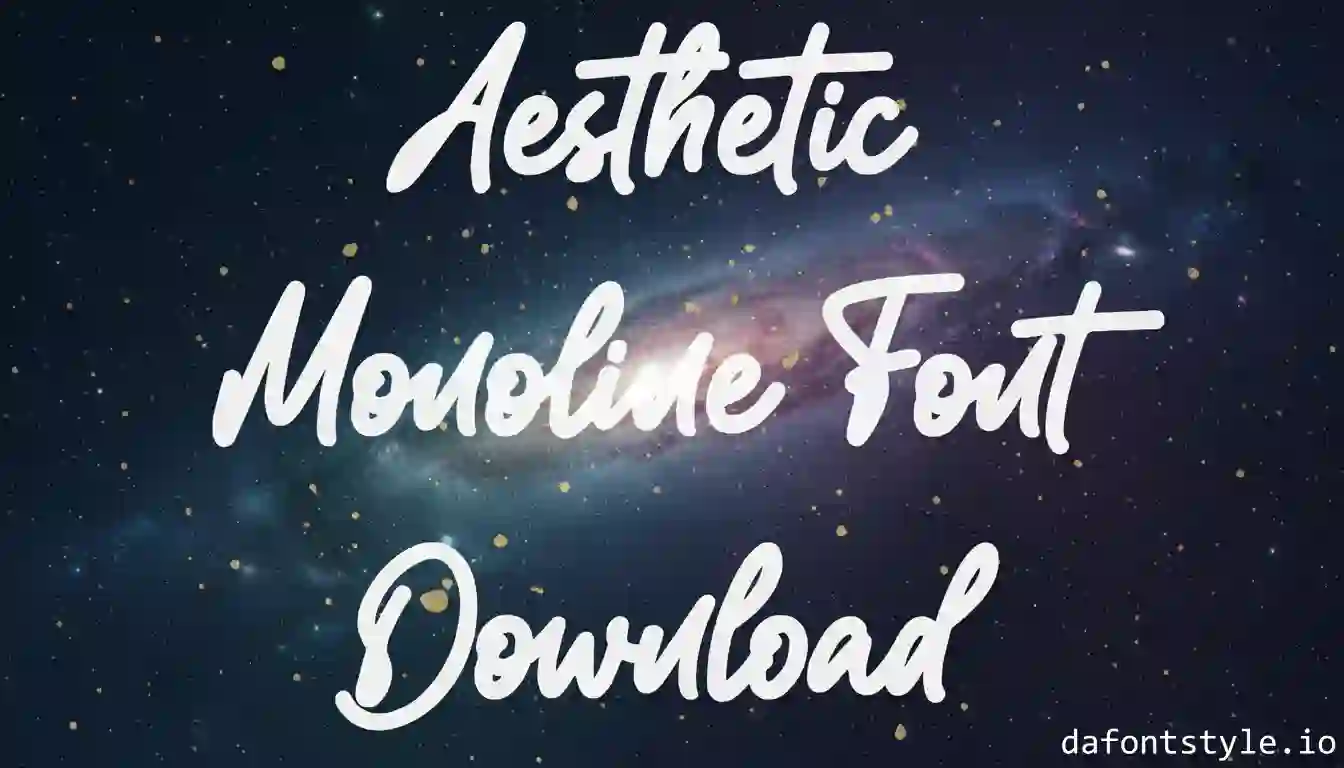
Aesthetic Monoline Font
Aesthetic Monoline
Aesthetic Monoline is a handwritten font designed by Aveni Yuanita and published by AVENI LETTER TYPE ( AVENI YUANITA). It has a casual, written-with-a-pen look that makes designs feel personal. You can download it for free and test it with your own words in the preview above.
Aesthetic Monoline covers the full alphabet in upper and lowercase, plus all ten numbers, so you can set names, dates and prices without switching fonts. Everyday marks like &, !, ? and @ are there too. Thanks to its accented letters, it also works for Spanish, French, Portuguese and Italian, not just English.
Aesthetic Monoline is a natural fit for greeting cards, journal pages and friendly social posts. Set it a bit larger than you would a normal text font. Handwriting styles lose their charm once they get too small to read comfortably.
Yes. Aesthetic Monoline includes the accented letters needed for Spanish, French, Portuguese and Italian, so it works for more than just English.